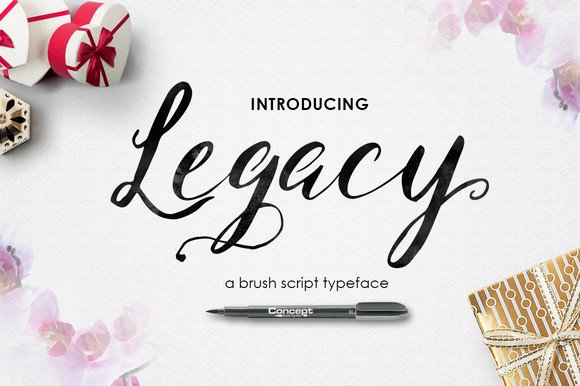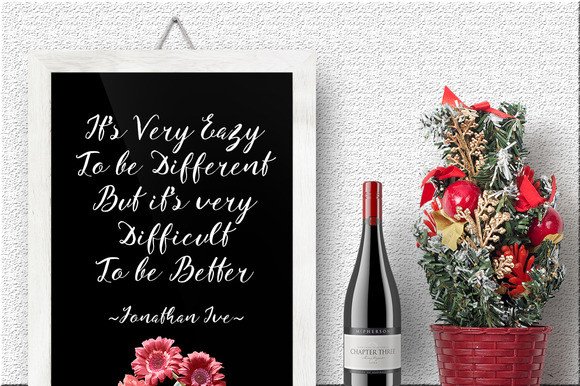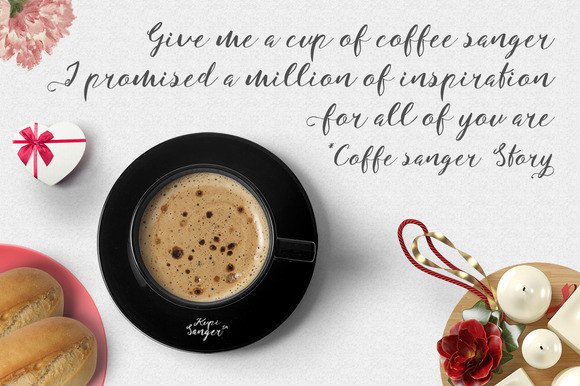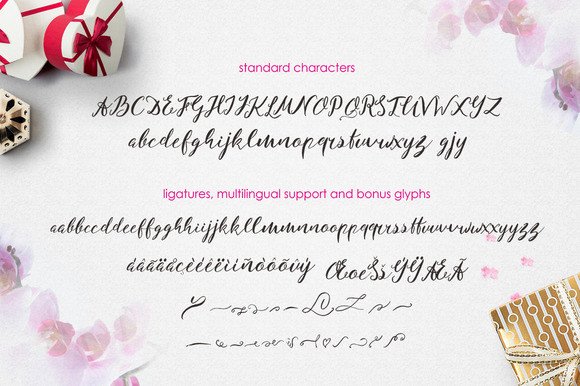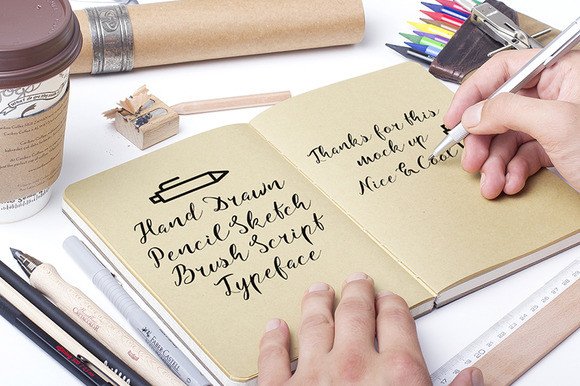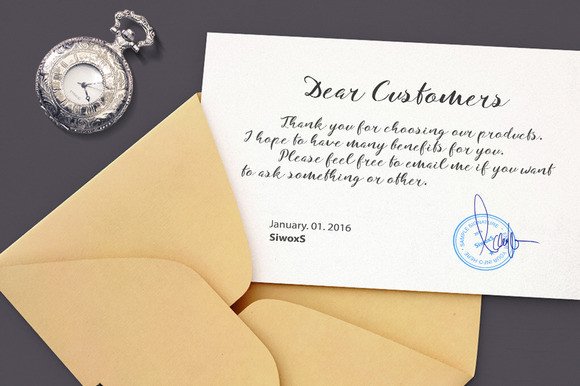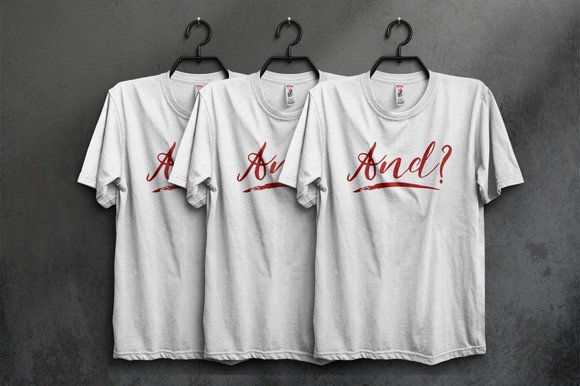
Legacy Font
About Legacy Font
Casual and free-flowing, Legacy Brush is a fun and beautiful brush script.  Legacy Brush is flourished and bold, making it ideal for a large array of designs or projects.